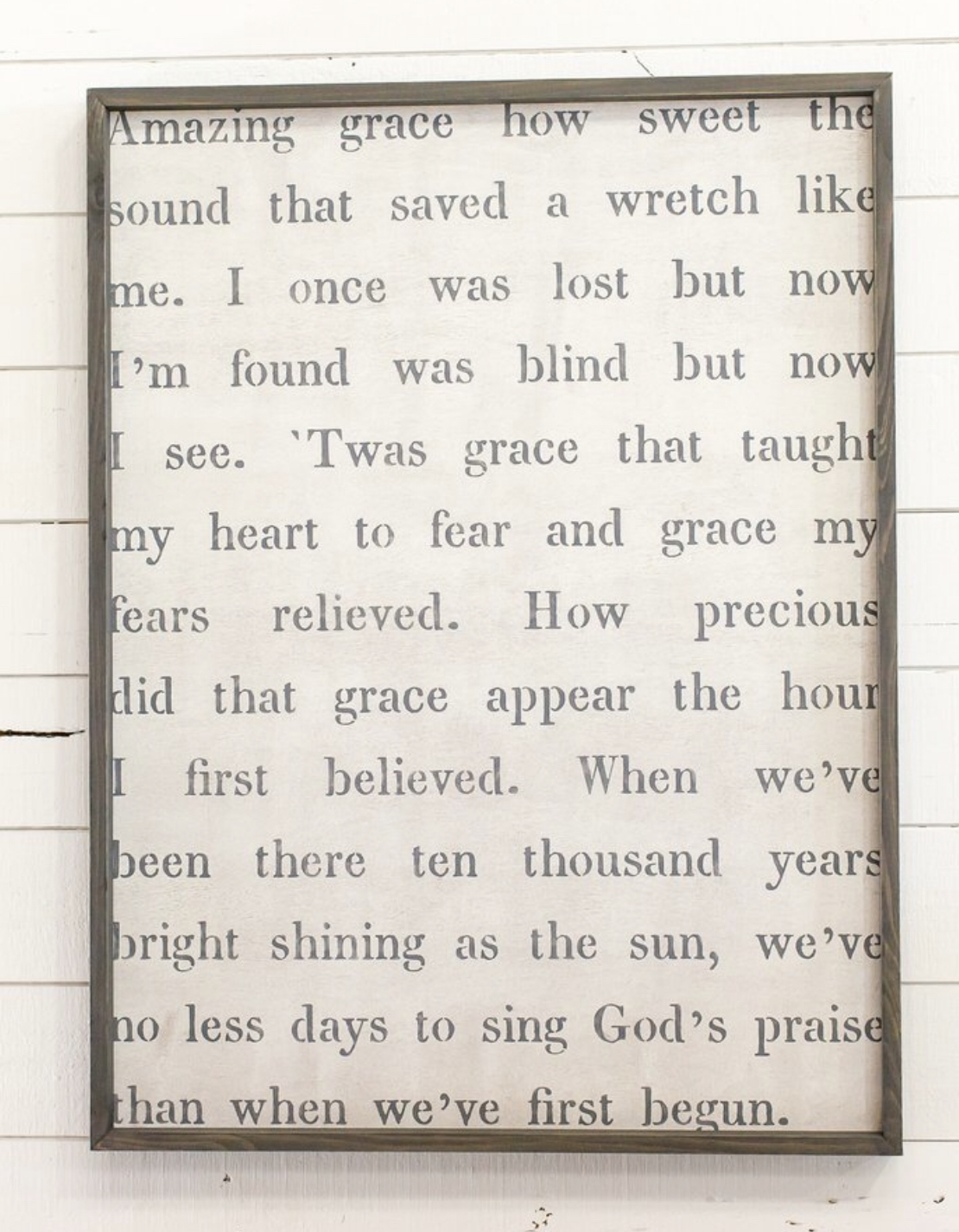
Struggling to identify this one…
This looks like it was originally printed from metal type. It closely resembles Walbaum, Bulmer, and Didot. The loop of the “g” doesn’t close, and the only older face I can find with a similar “g” is Baskerville. Also, the H is narrower than in the fonts I mentioned.